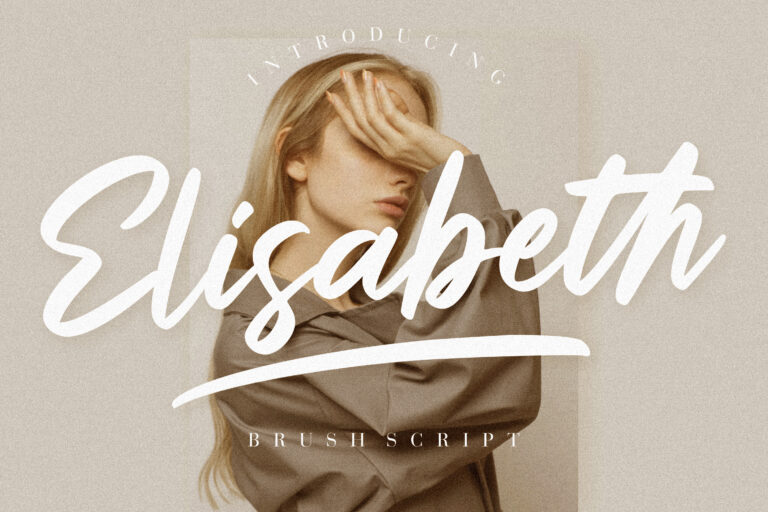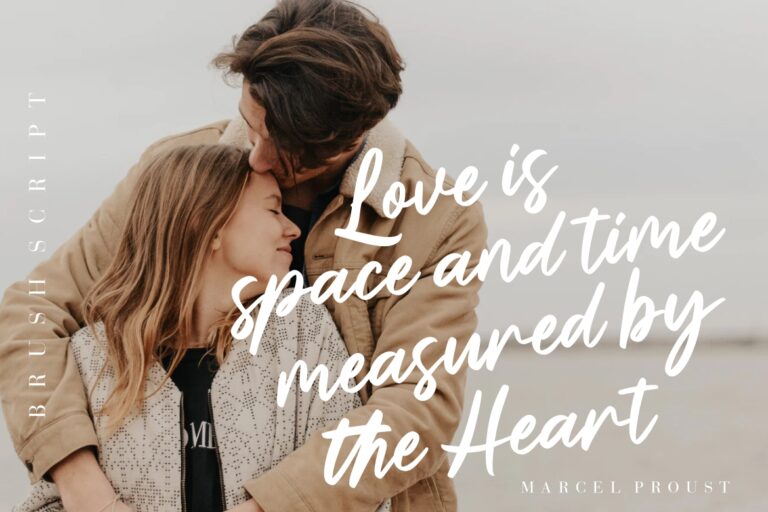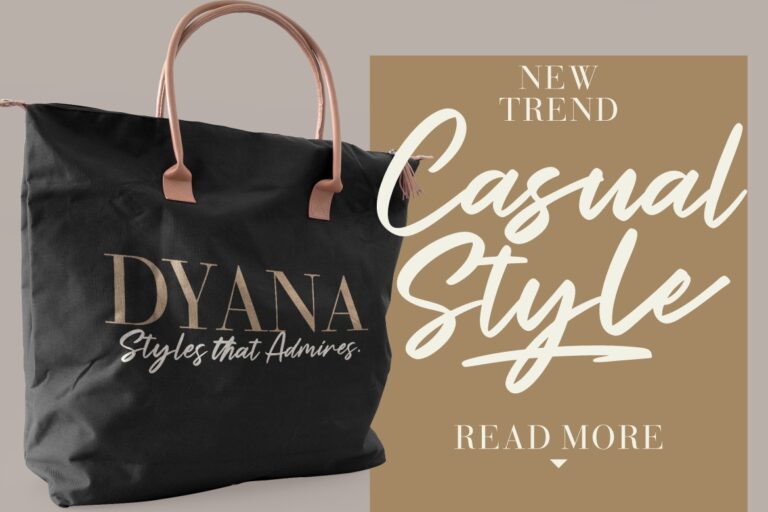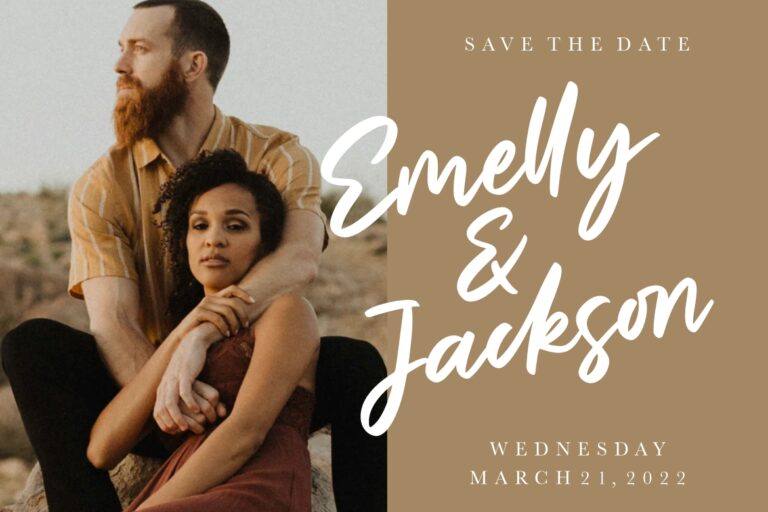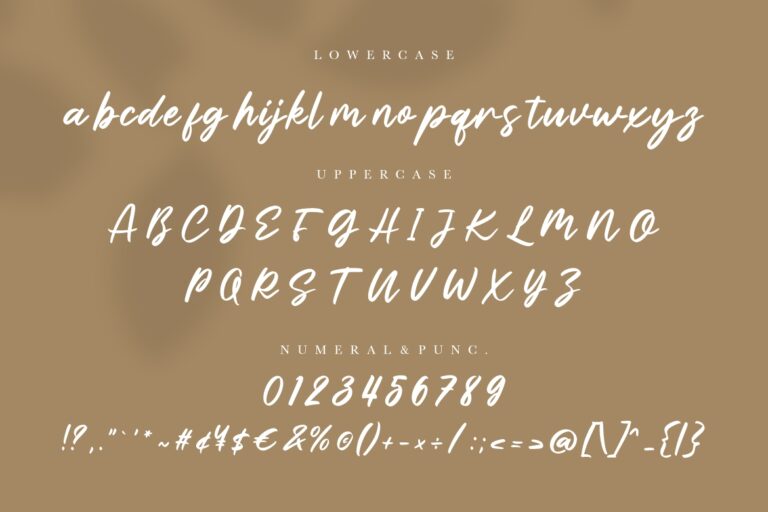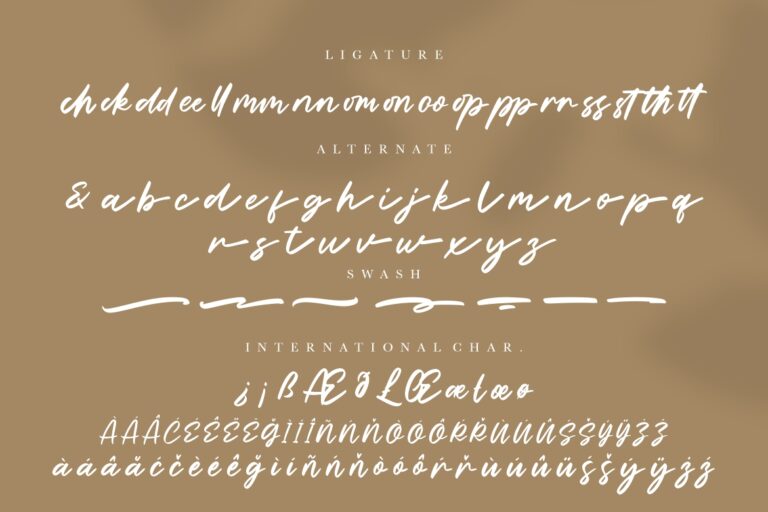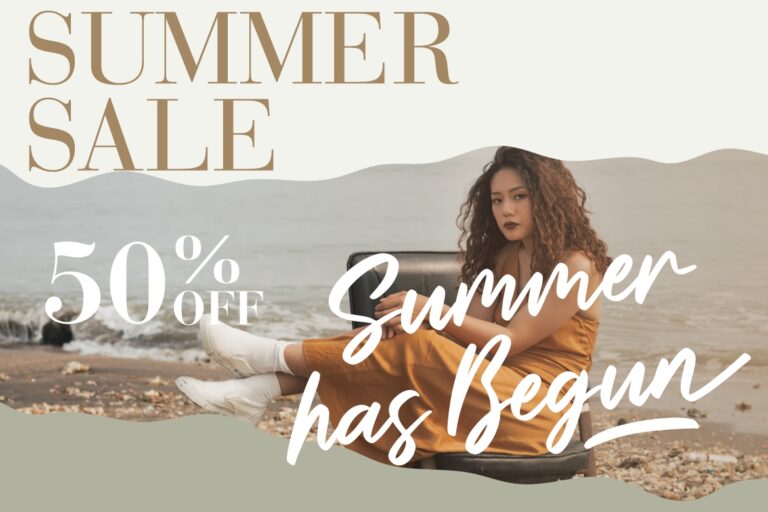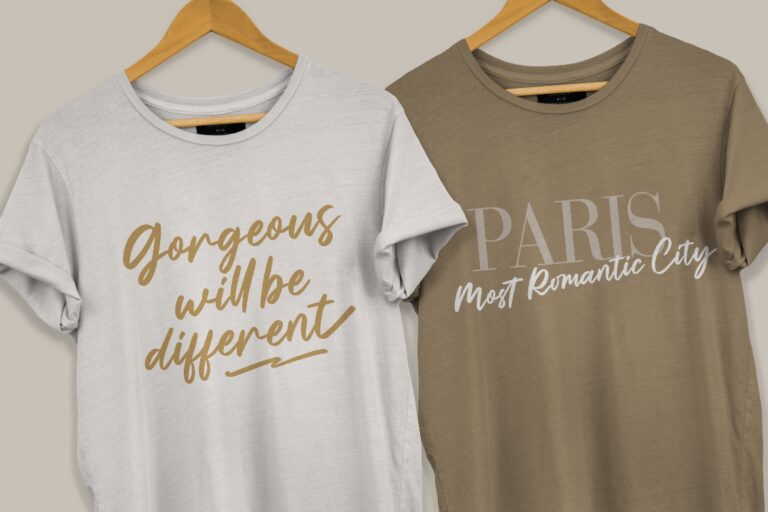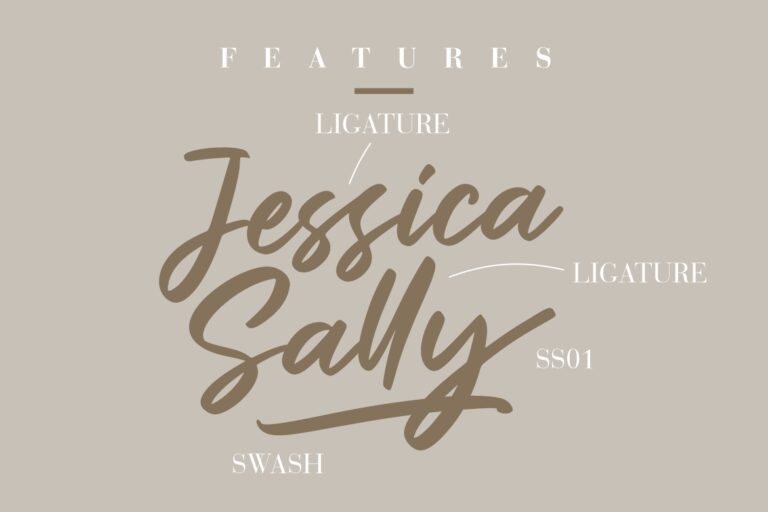
Elisabeth is excellent brush script font with natural scratches.
Elisabeth is perfect for branding projects, logo, wedding designs, social media posts, advertisements, product packaging, product designs, label, photography, watermark, invitation, stationery and any projects that need handwriting taste.
Elisabeth Brush Script